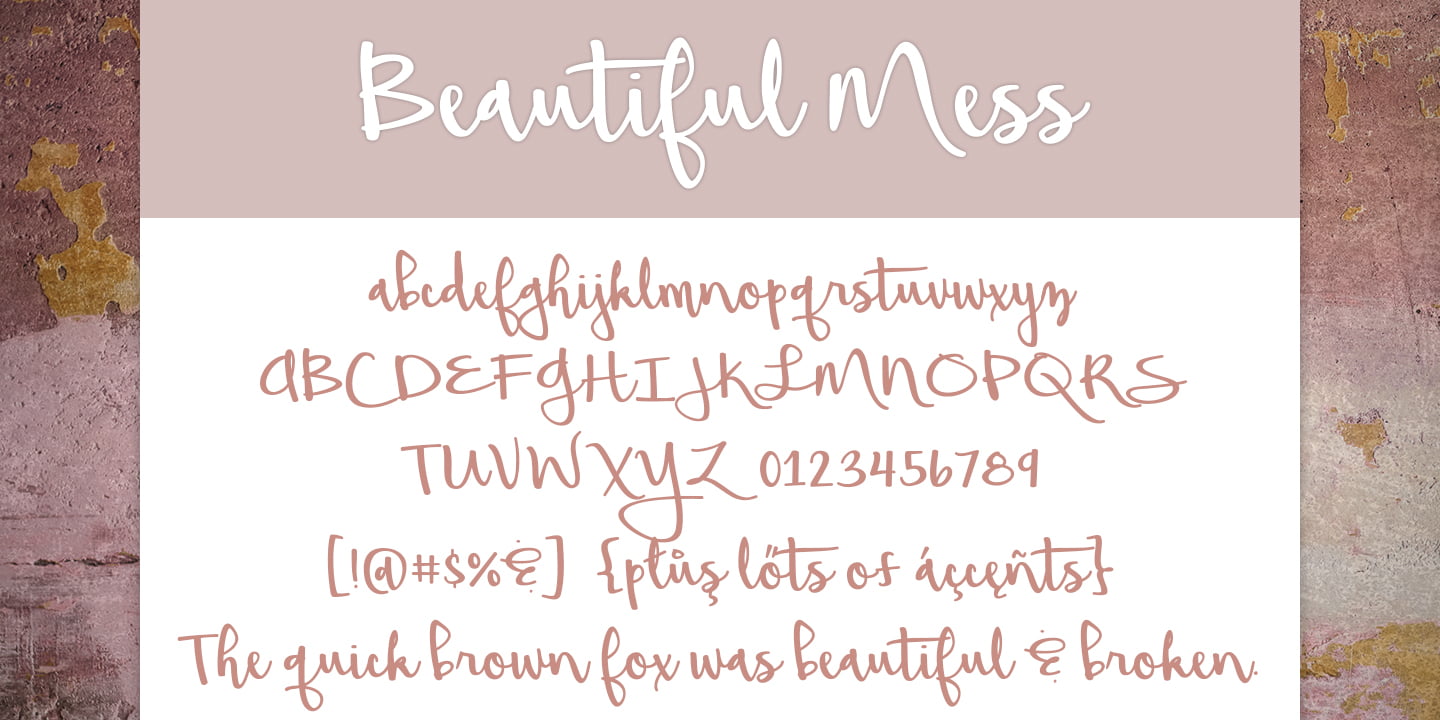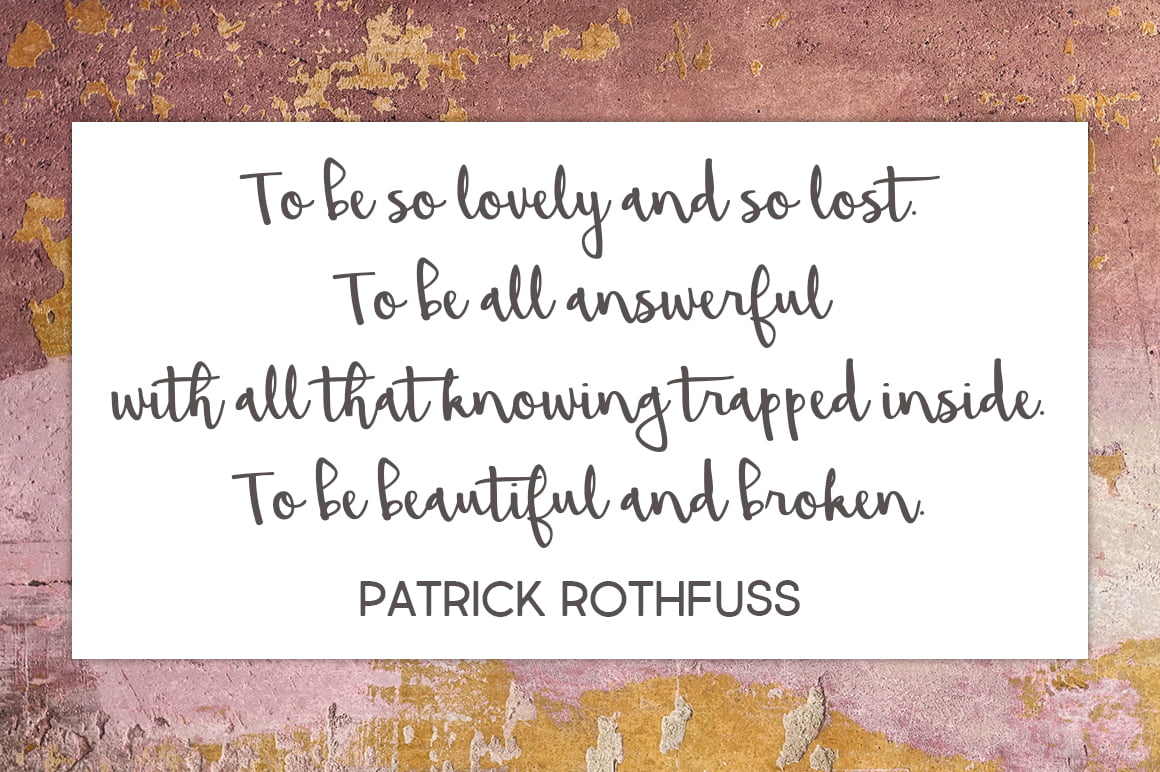
Beautiful Mess
The Beautiful Mess font is a lovely, if slightly messy, hand-drawn script font created in 2016 by Brittney Murphy Design. Beautiful Mess features 360 characters and supports most latin based languages. The Beautiful Mess font is great for giving your graphic design project an imperfect yet still organized feeling. Perfect for logotype, by-lines, and anything you would like to give a natural flowing feel to.